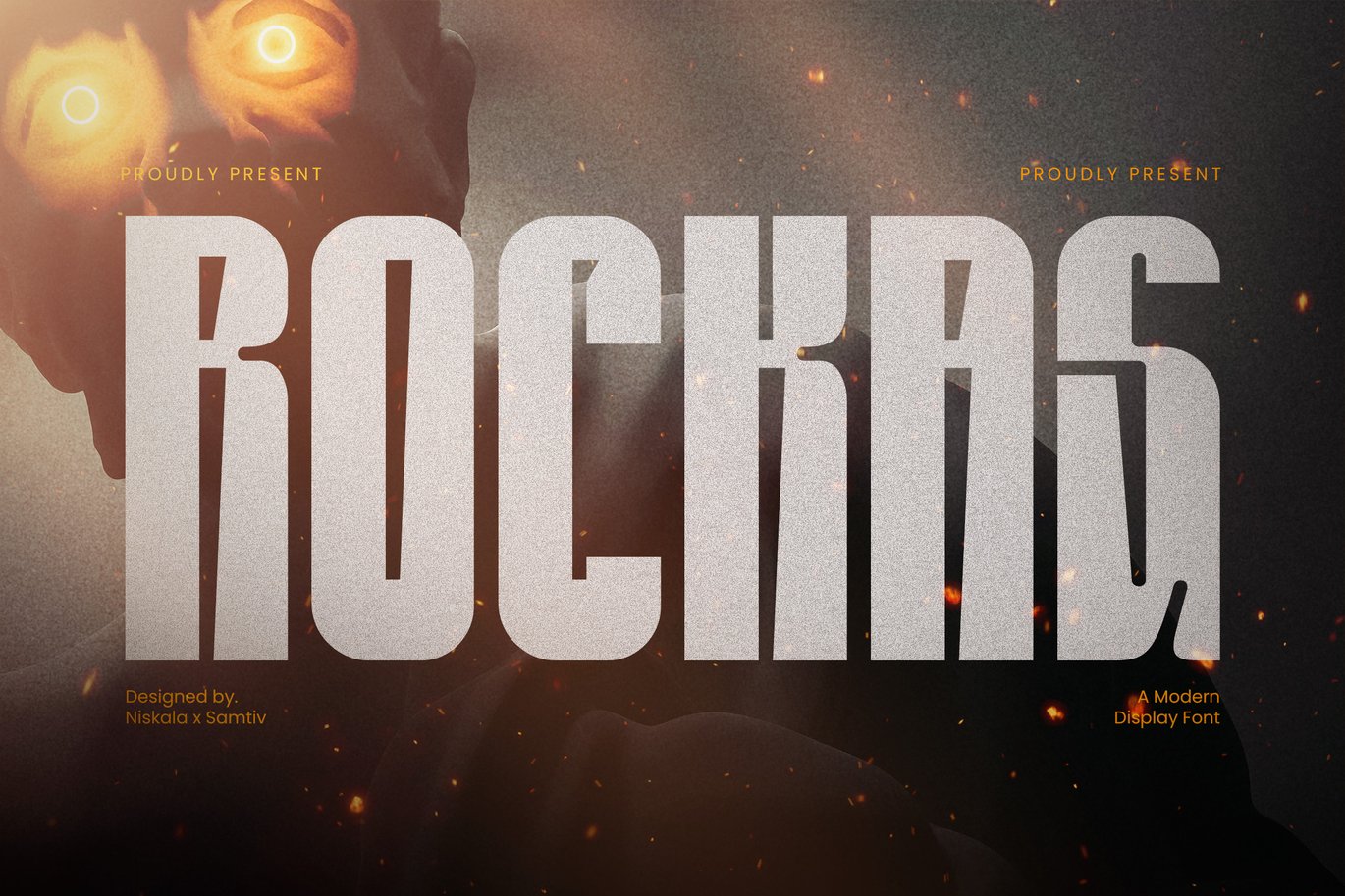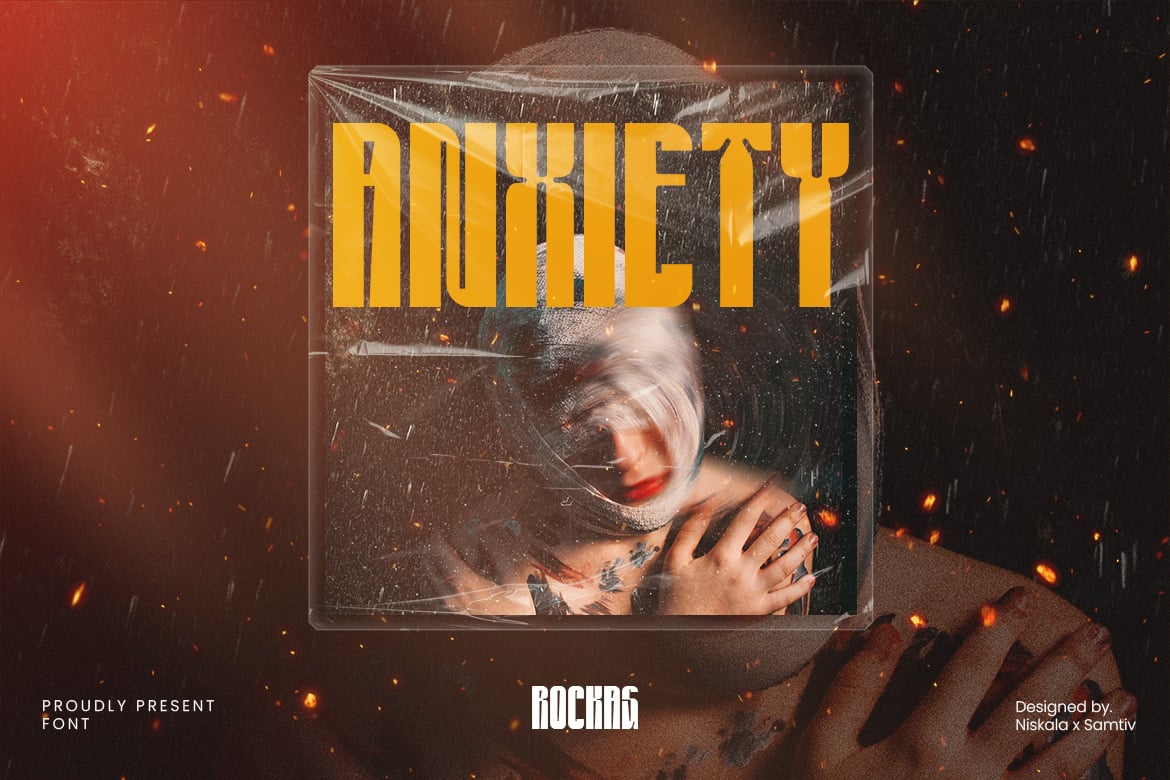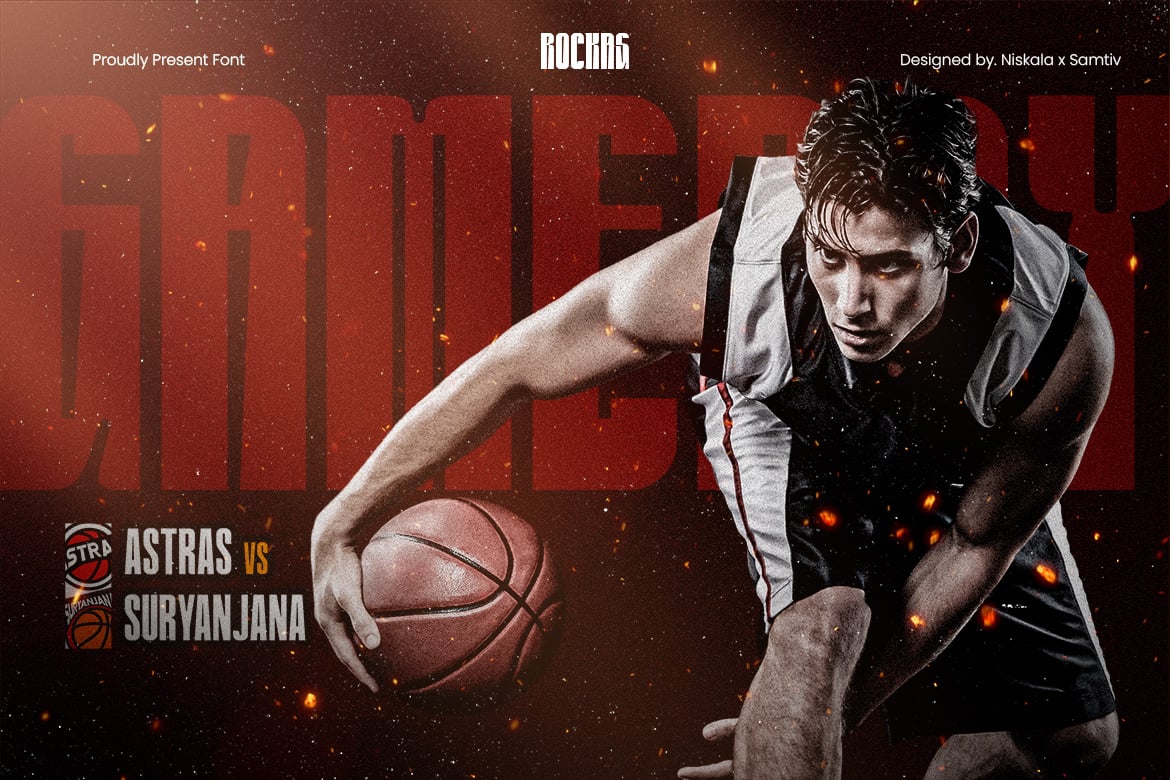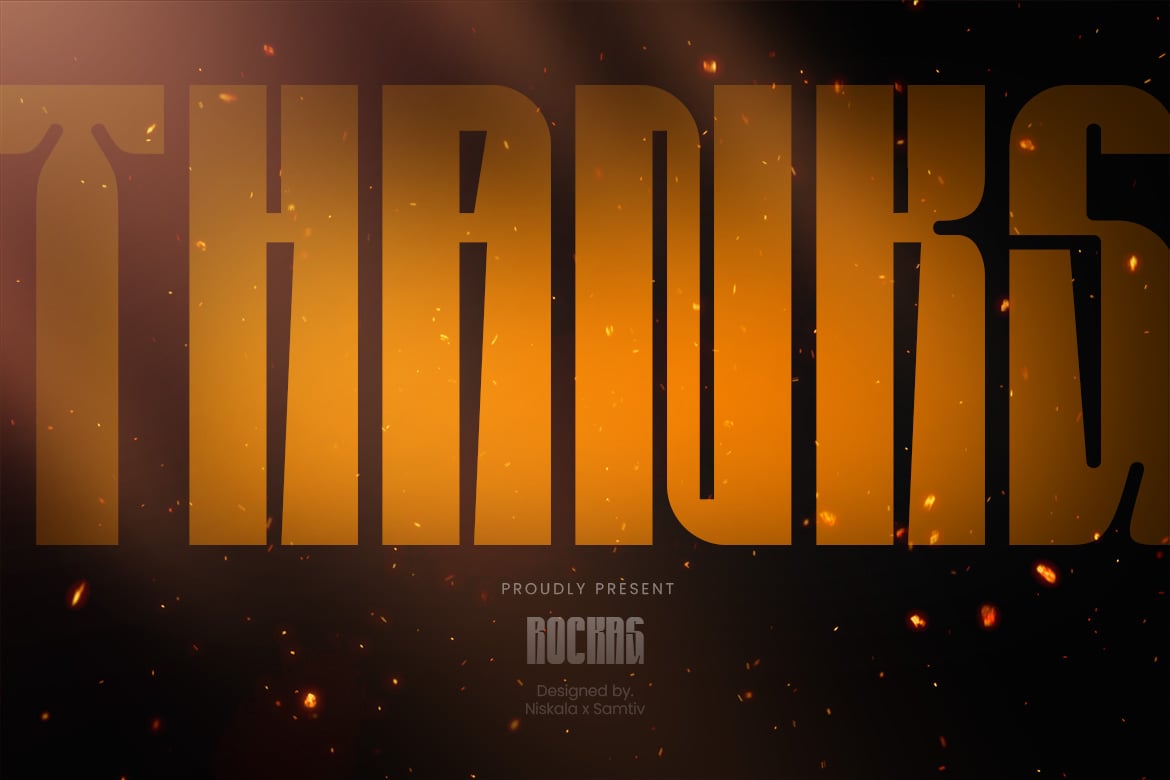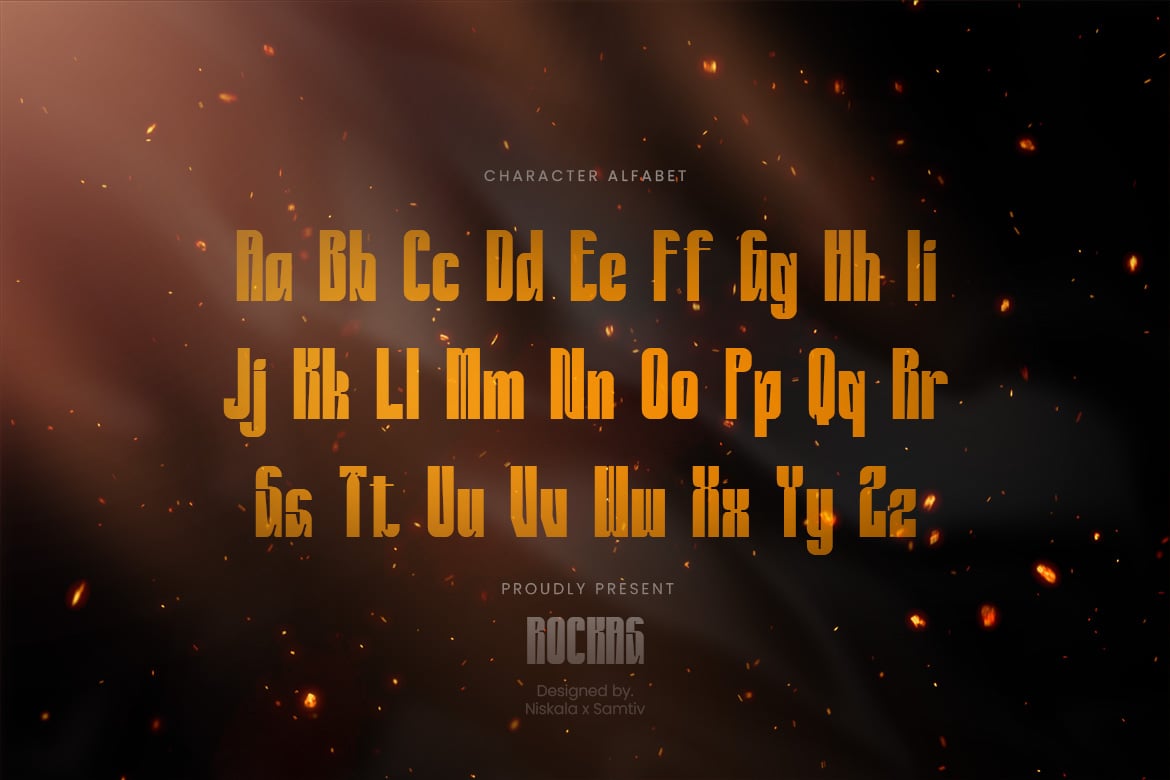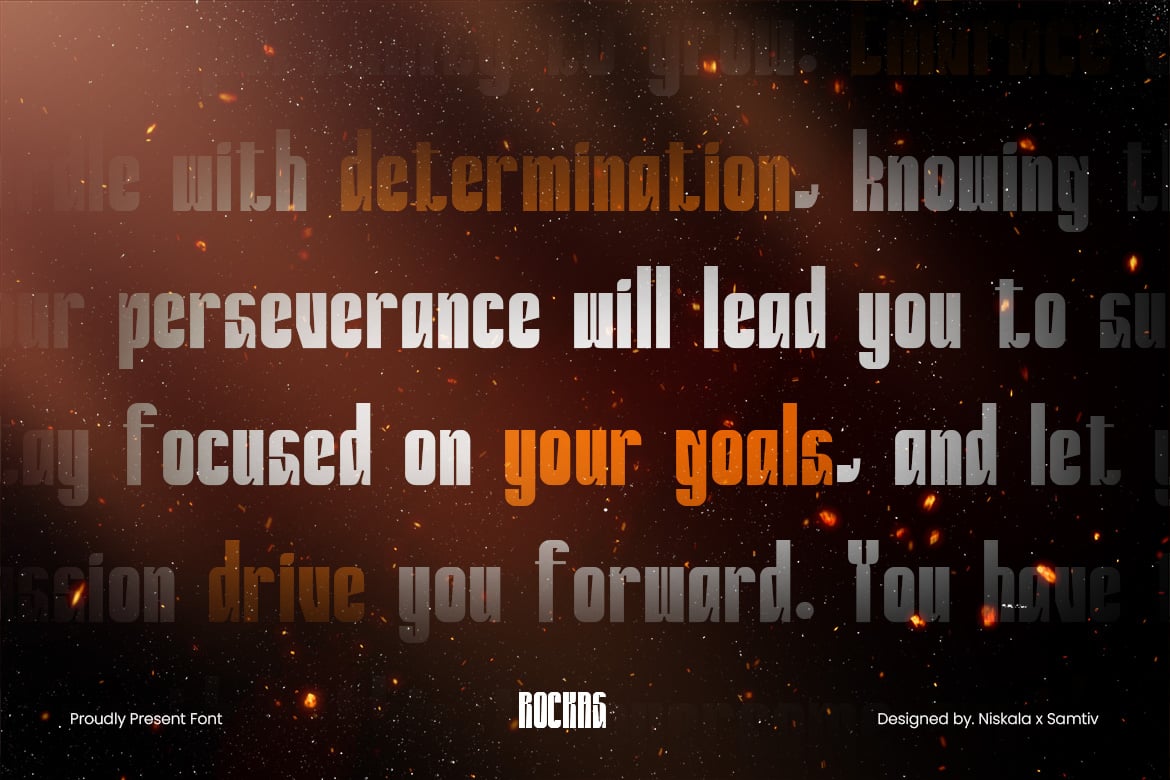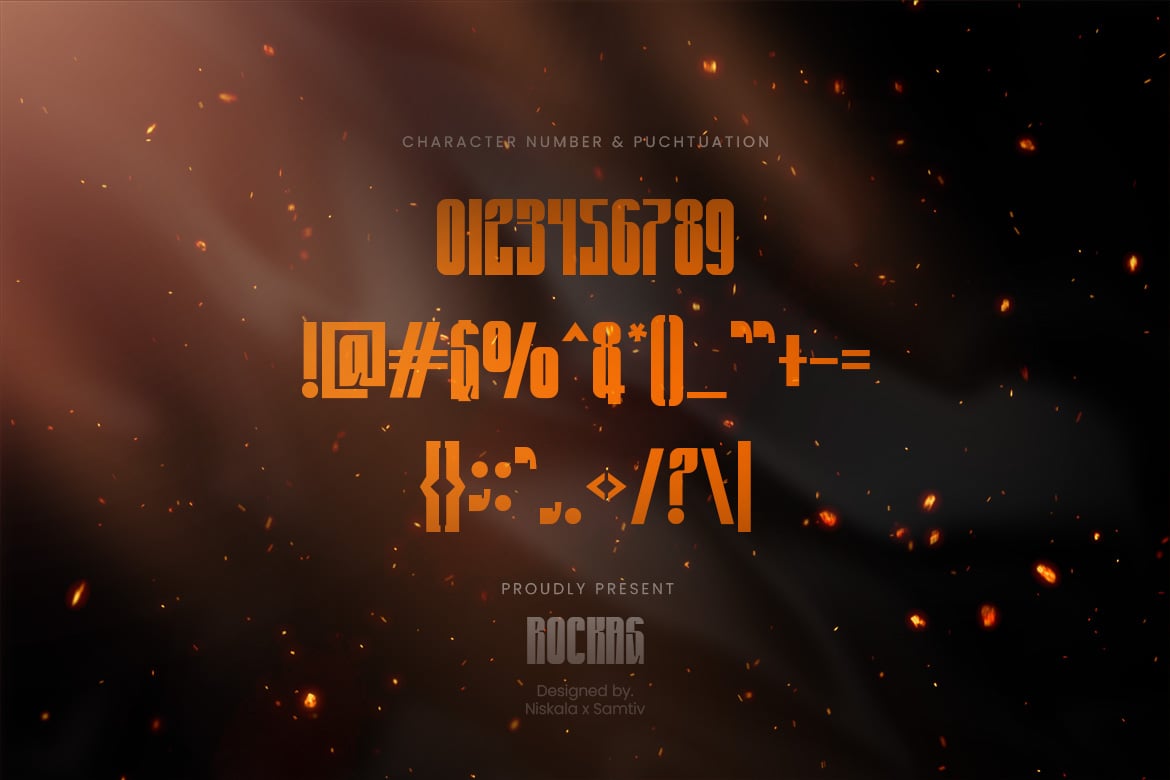
Rockas – A Modern Sport Display Font
Rockas an awesome sports font with wide italic fonts, modern cutouts, and a dynamic slant. Ideal for sports titles, Football matches, game logos, and monograms or other modern dynamic text. Rockas compares favorably with legibility and size, creating the effect of power. check it out and grab it right away.